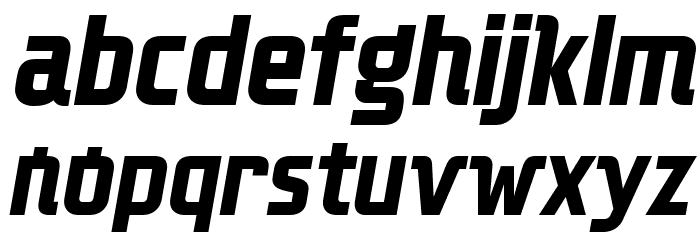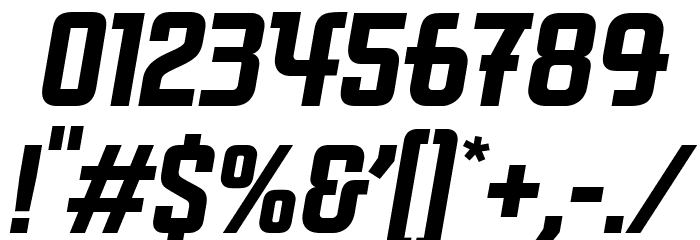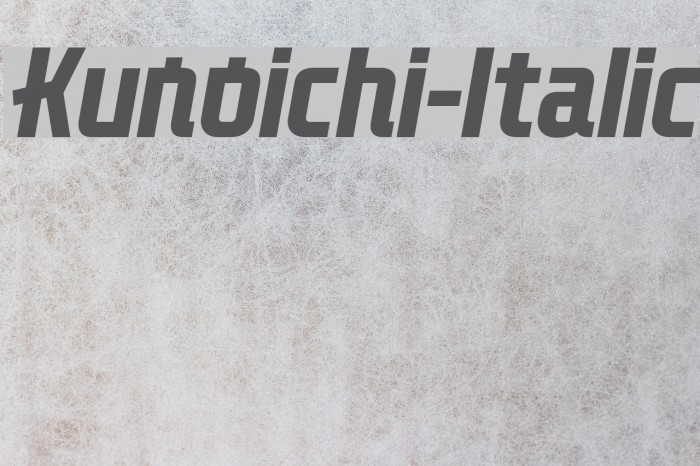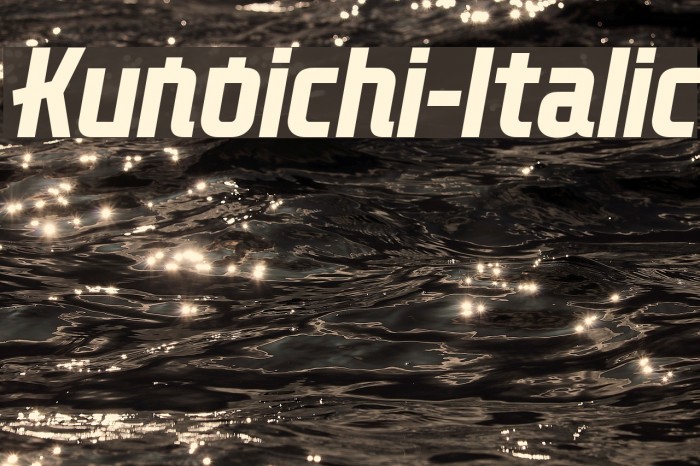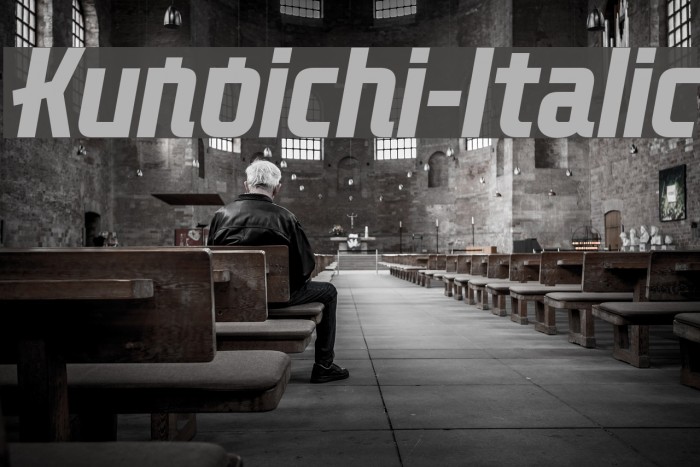
Kunoichi-Italic Font
This font features a bold, italicized style with a strong, dynamic presence. The characters are slightly condensed, giving a compact and energetic feel. The strokes are thick and consistent, providing a medium contrast that enhances readability while maintaining a modern aesthetic. The slanted design adds a sense of motion and urgency, making it suitable for impactful headlines and attention-grabbing text. The uppercase and lowercase letters are well-balanced, and the numerals are clear and distinct. Special characters are included, maintaining the cohesive style throughout.
A bold, italicized font with a modern, dynamic style and medium contrast.
- Proposed Projects: Ideal for sports branding, dynamic posters, modern advertising, and action-themed designs.